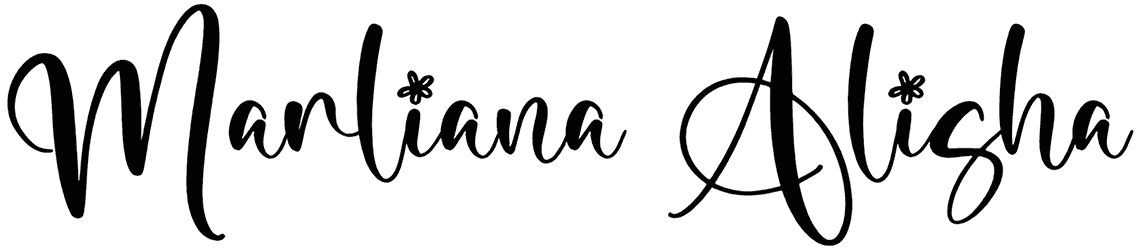
Marliana Alisha Font
If your project needs a casual touch to lighten the mood or give it a more professional look, both Marliana Alisha styles can help. By highlighting this script font, you’ll have a powerful tool in your hand that, despite being illegible, can convey your message.
You should be careful not to use this feminine font for long texts and only send short messages in the form of wedding cards, love letters, and invitations to your unique audience with this tool.